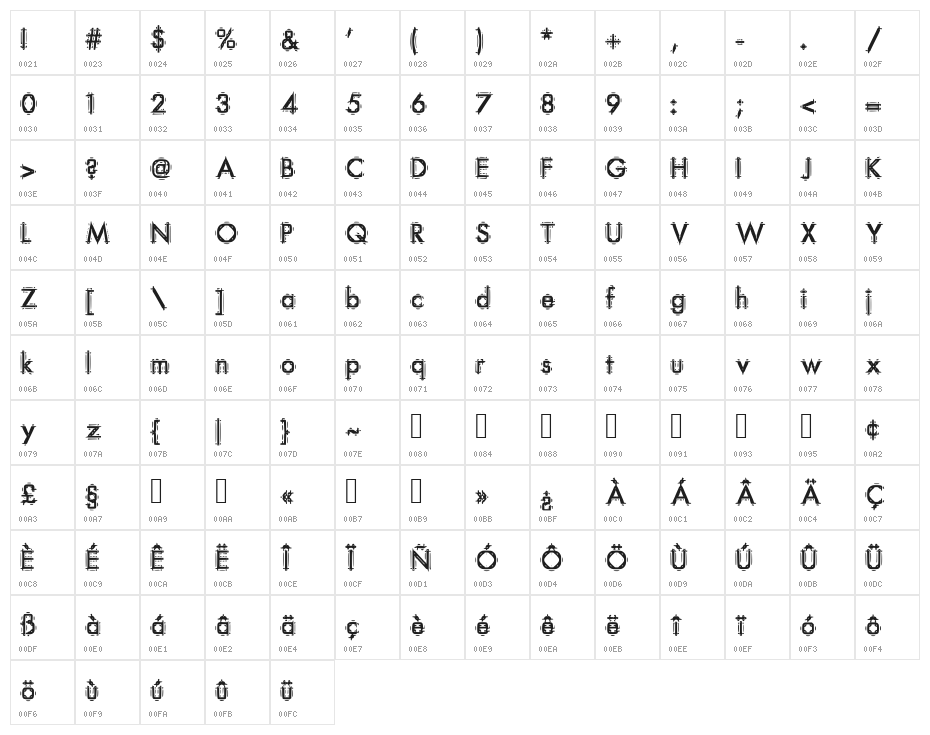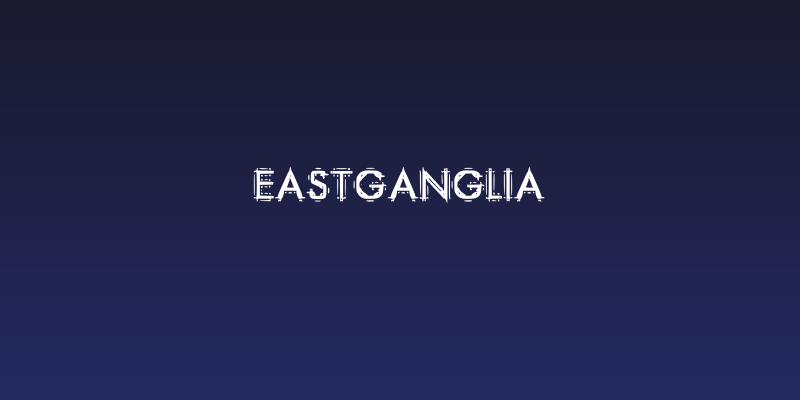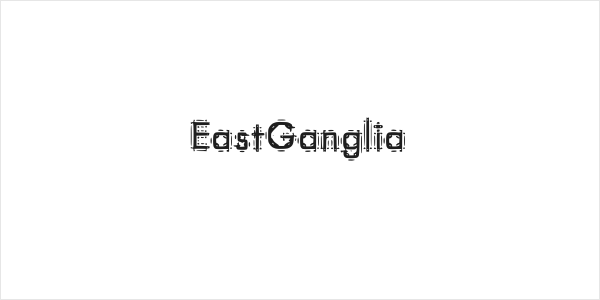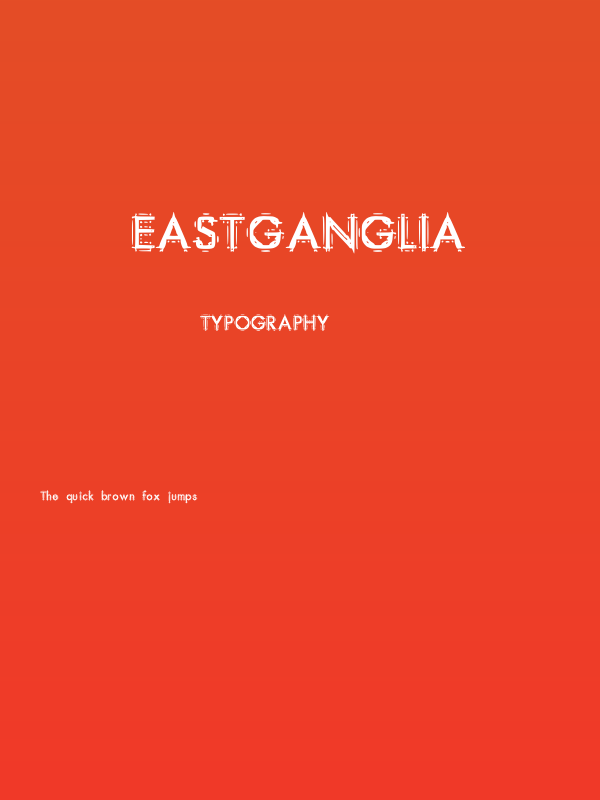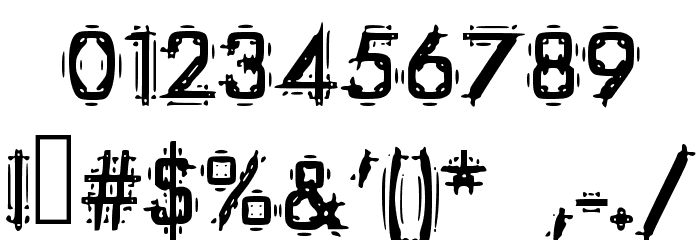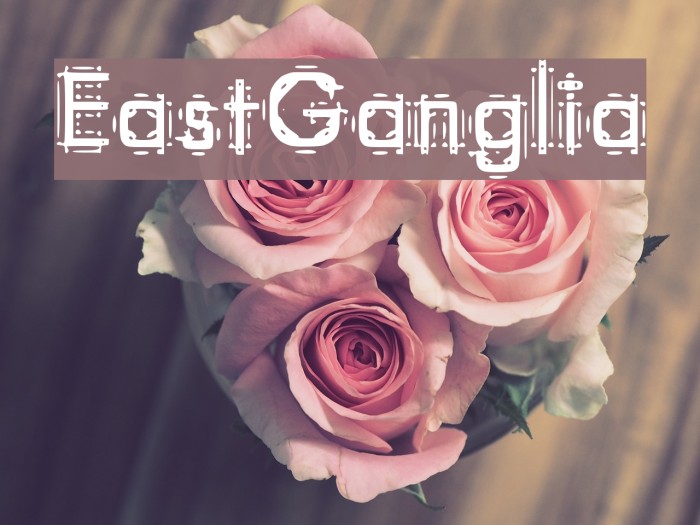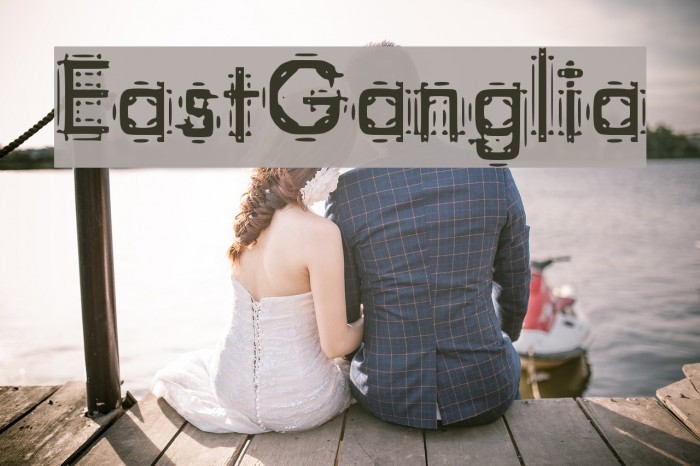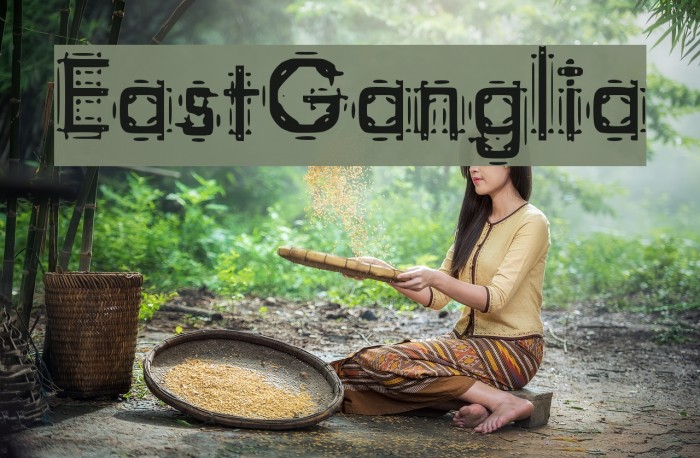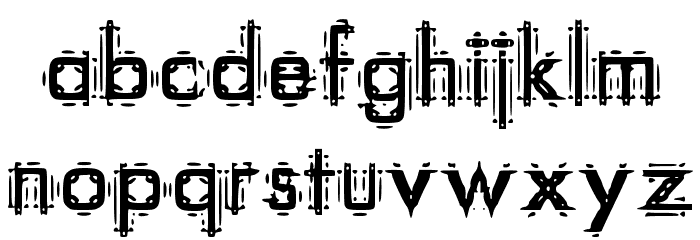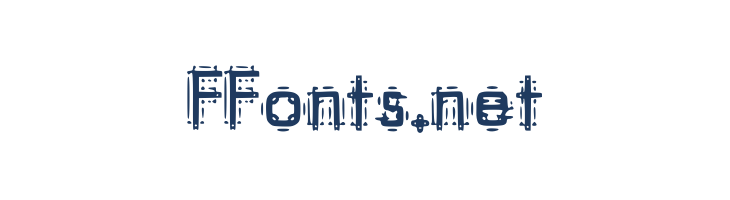
EastGanglia Font
This font features a distressed, grunge style with a unique, textured appearance. Each character is adorned with irregular, jagged edges and a rough, weathered look, giving it a distinctly edgy and rebellious feel. The uppercase and lowercase letters maintain a consistent height and width, while the numbers and special characters follow the same rugged design. The font's bold presence makes it ideal for projects that require a strong visual impact, such as posters, album covers, or branding for alternative or rock-themed events. Its decorative nature is both eye-catching and memorable, making it suitable for creative and artistic endeavors.
| Proposed Projects | Ideal for posters, album covers, branding for alternative or rock-themed events, and creative projects. |